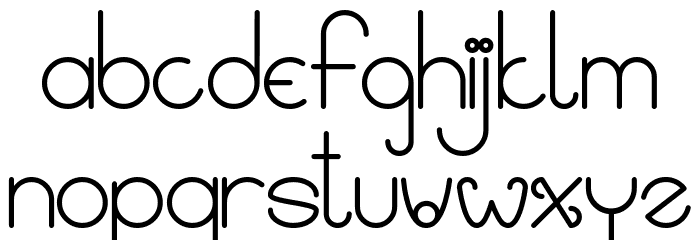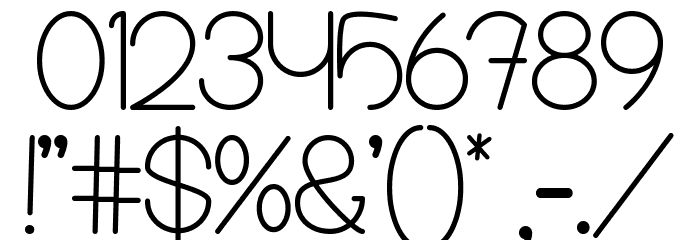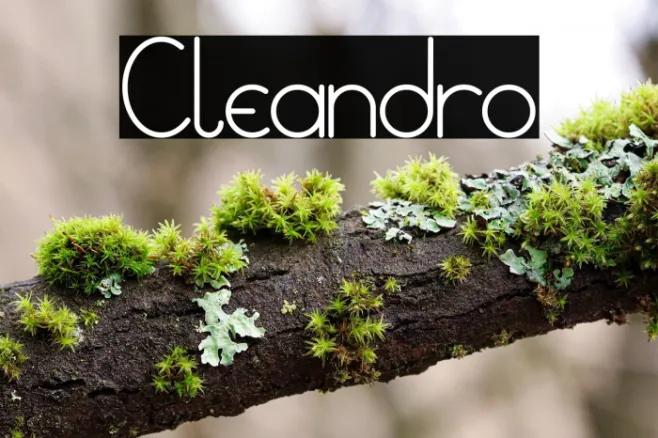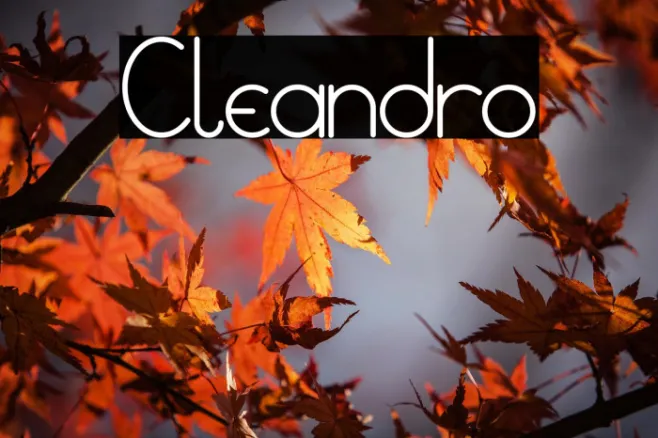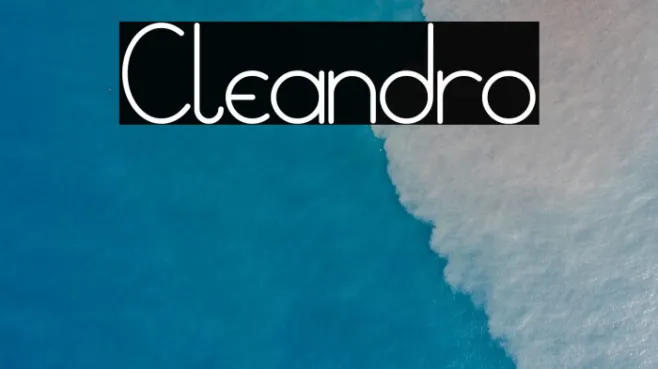
Cleandro Font
This font features a unique and playful design with a modern twist. The characters are composed of thin, uniform strokes that create a clean and airy appearance. The uppercase letters have a distinctive geometric style, with rounded edges and open forms, giving them a friendly and approachable look. The lowercase letters maintain this playful aesthetic, with some characters featuring unexpected loops and curves that add a touch of whimsy. The numerals are consistent with the overall style, offering a clear and legible design. Special characters are thoughtfully integrated, maintaining the font's cohesive and modern feel.
A playful and modern font with thin, geometric strokes and whimsical character designs.
- Proposed Projects: Ideal for children's books, playful branding, creative posters, and modern web design.